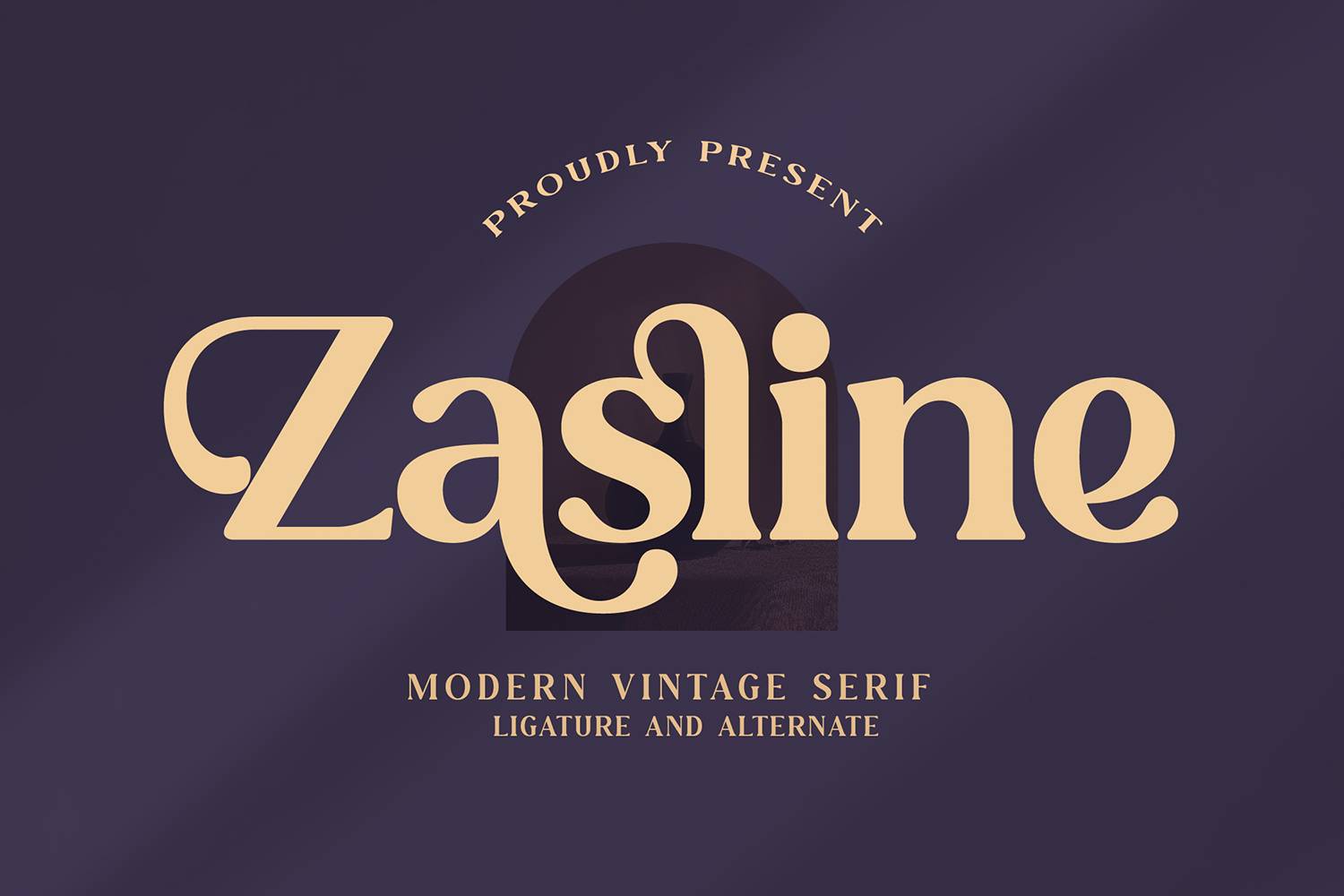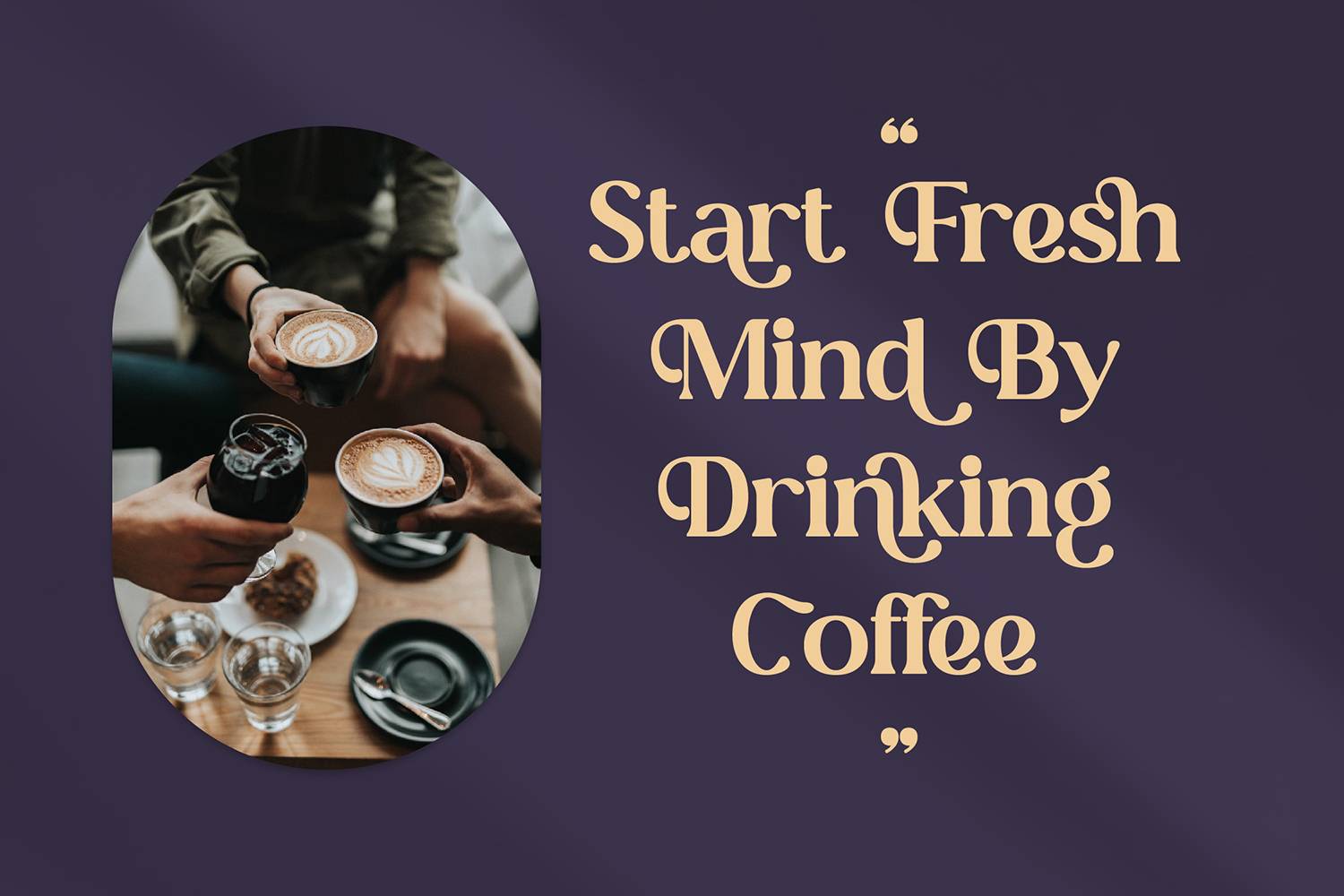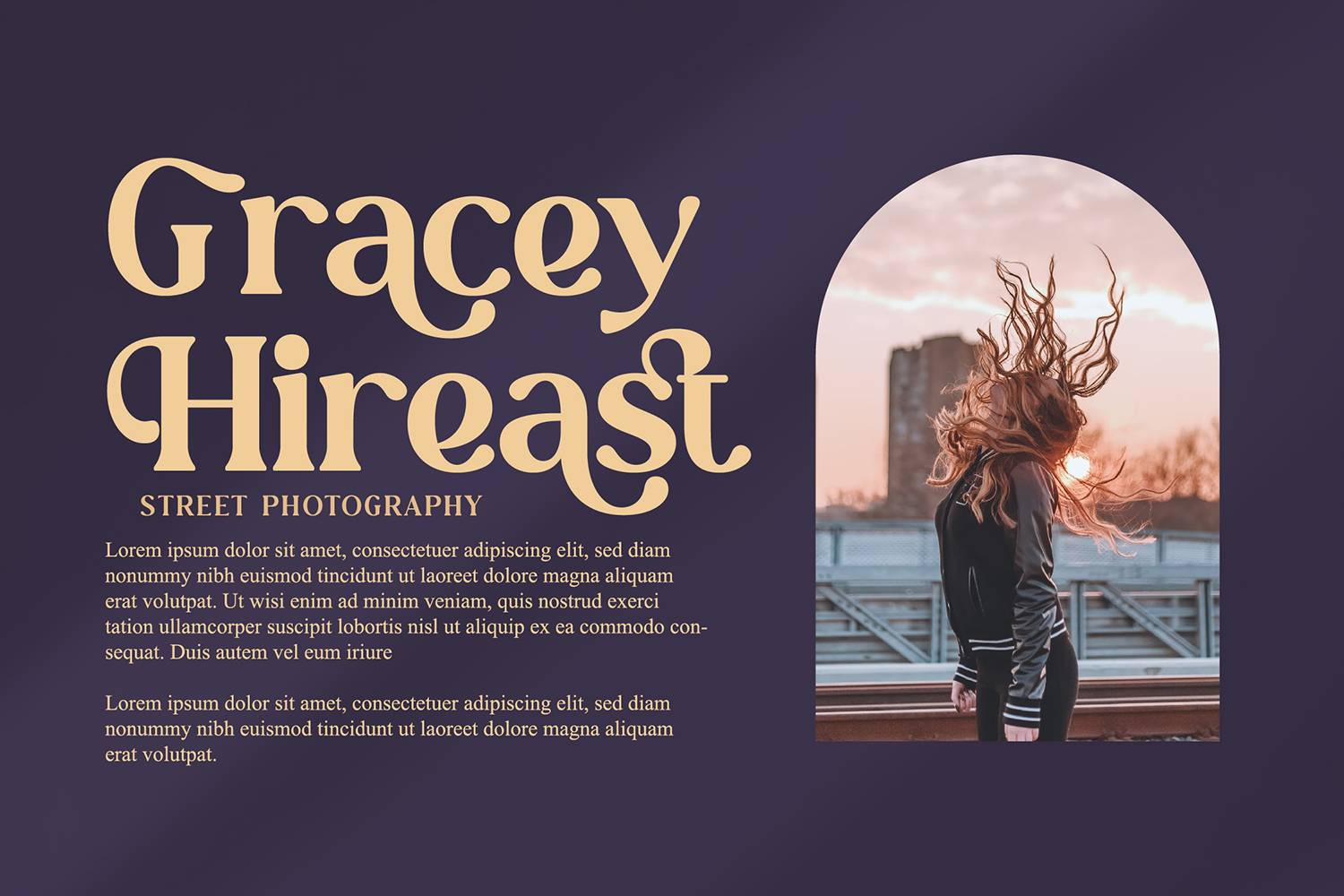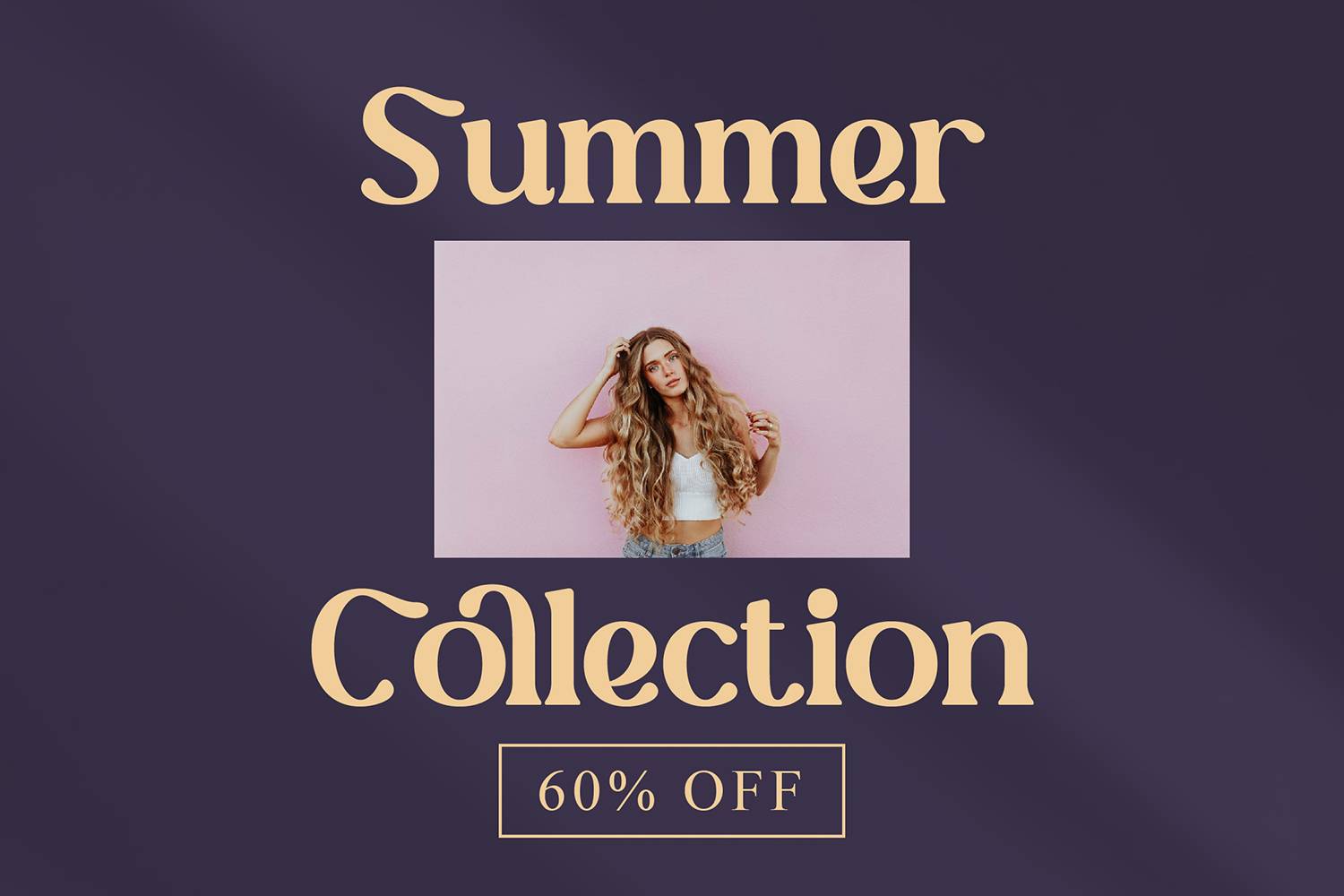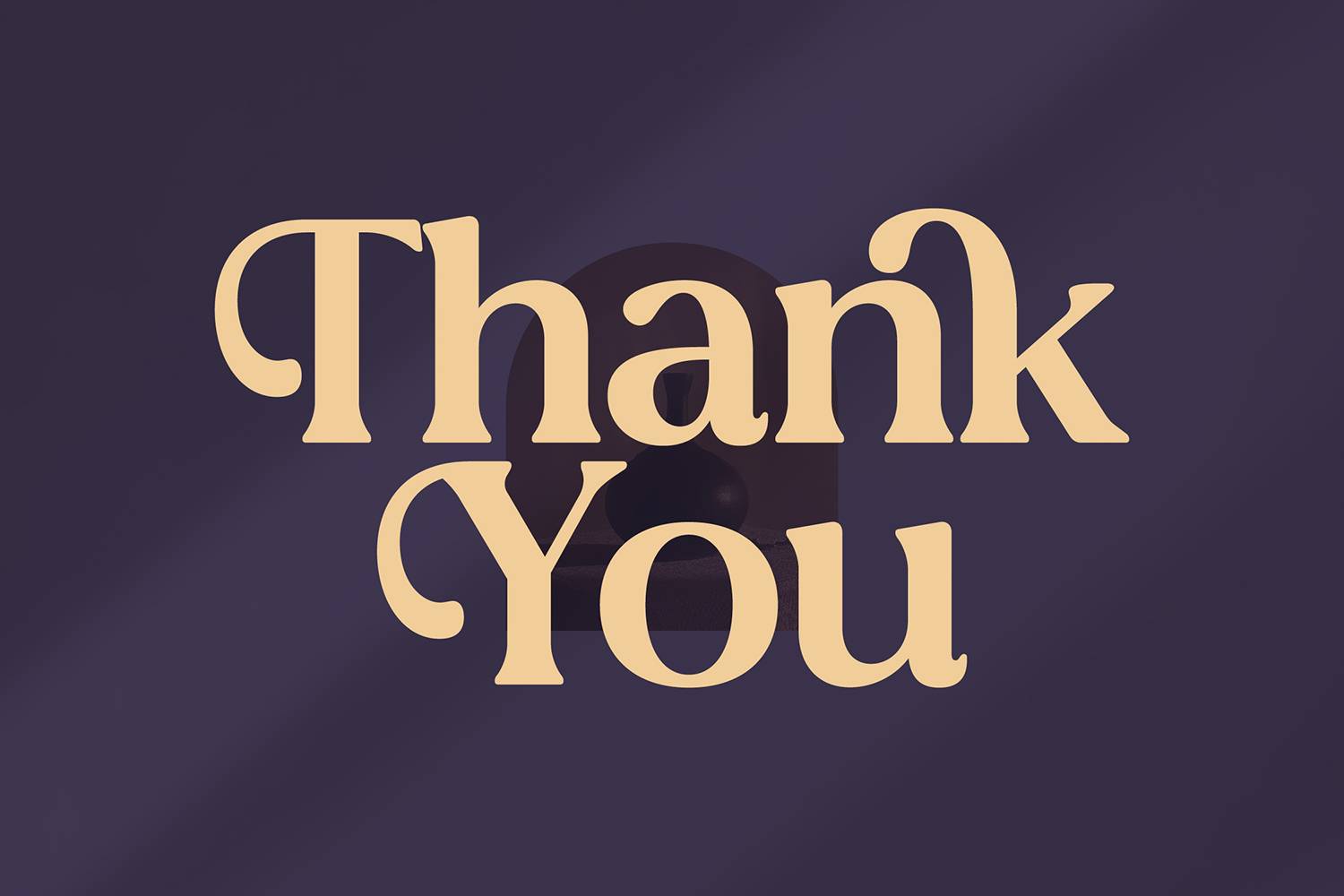
Zasline is a refined serif font with a strong presence, featuring a high contrast between thick and thin strokes and sharp, bracketed serifs that give it a classic yet bold character. Its moderate width and distinctive letterforms make it elegant and authoritative, ideal for sophisticated branding, editorial headlines, and luxury packaging where clarity and style are key. This font combines traditional charm with contemporary appeal, making it perfect for projects needing both elegance and impact.
Zasline Font
About Zasline Font